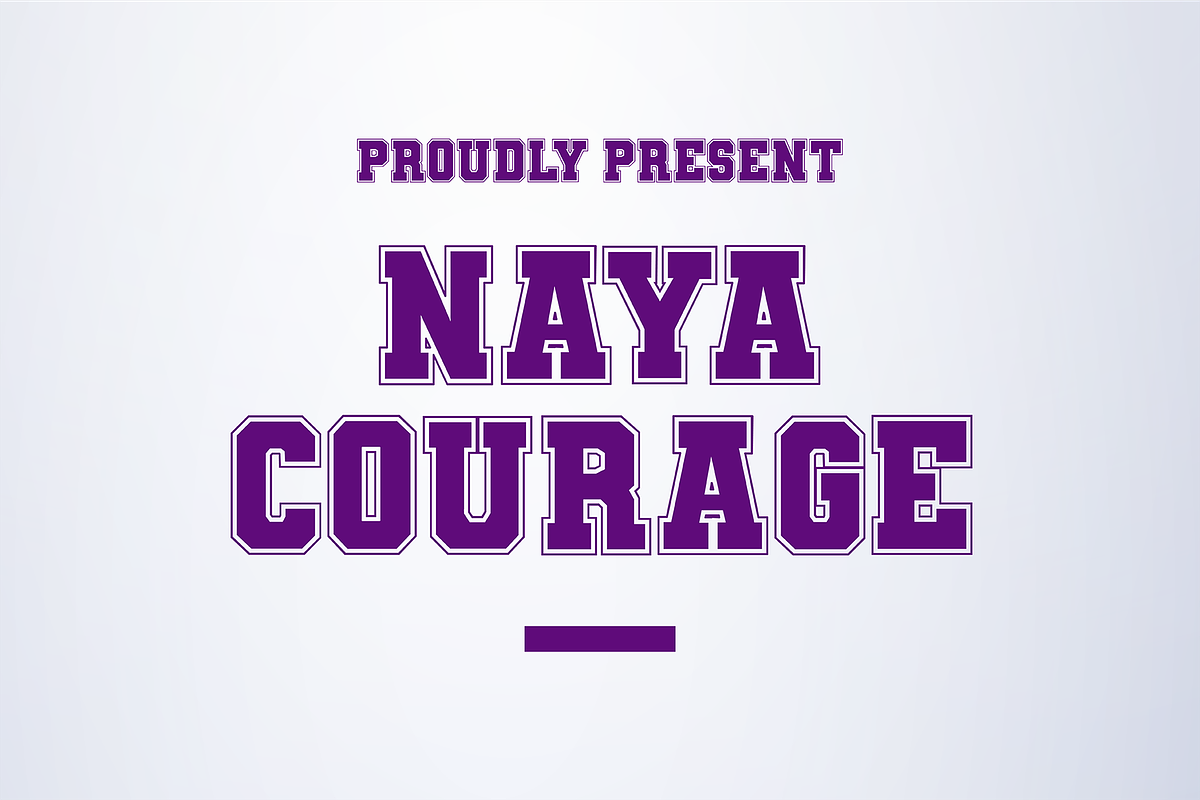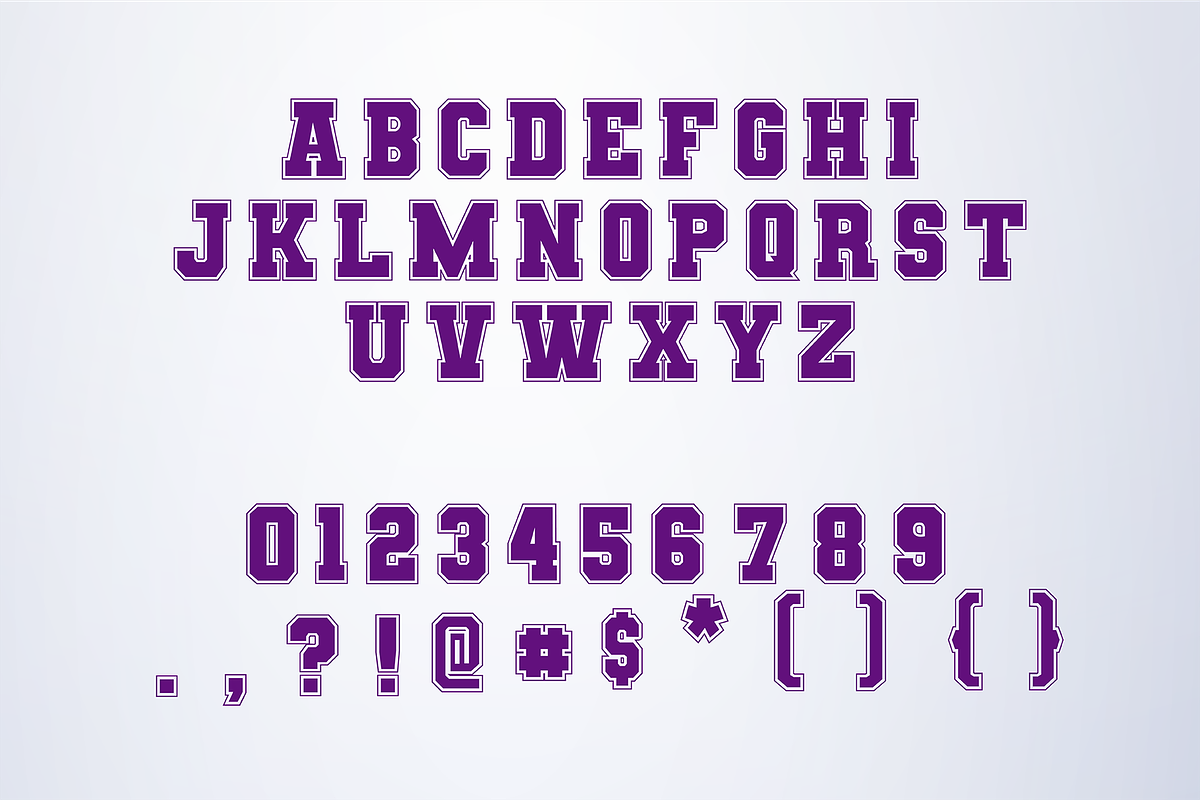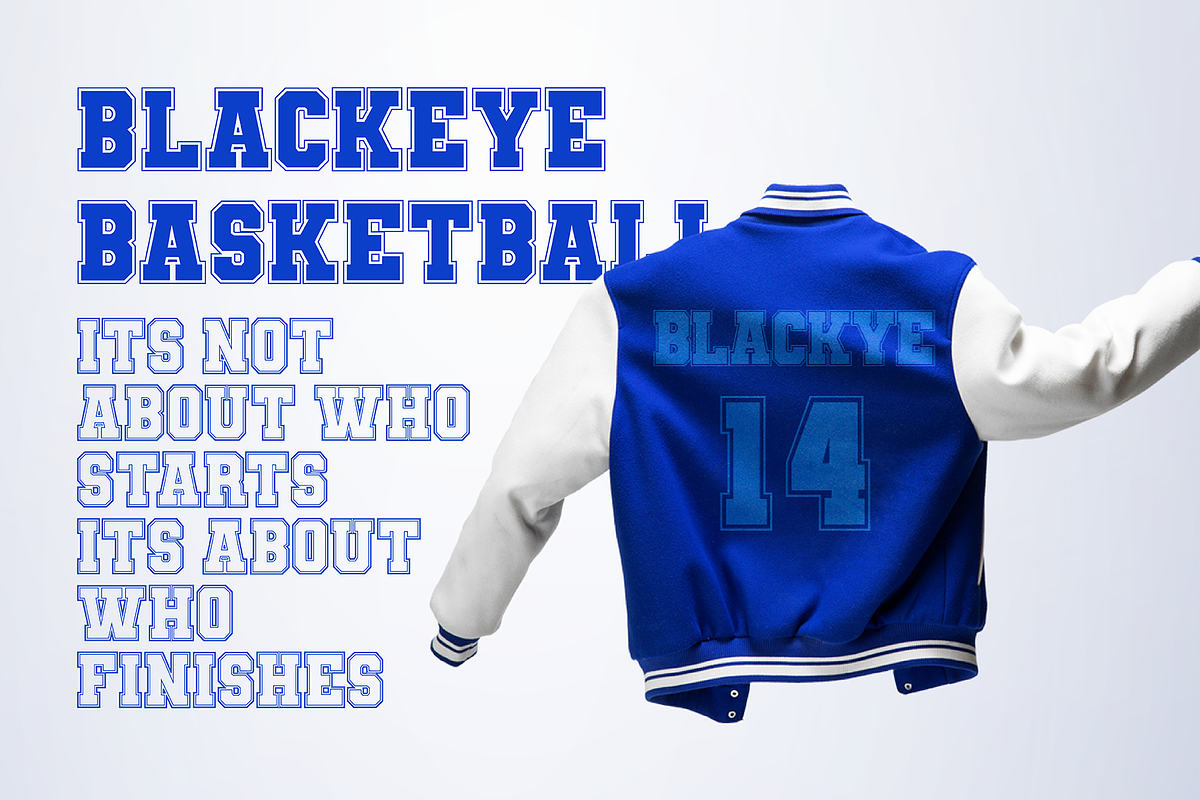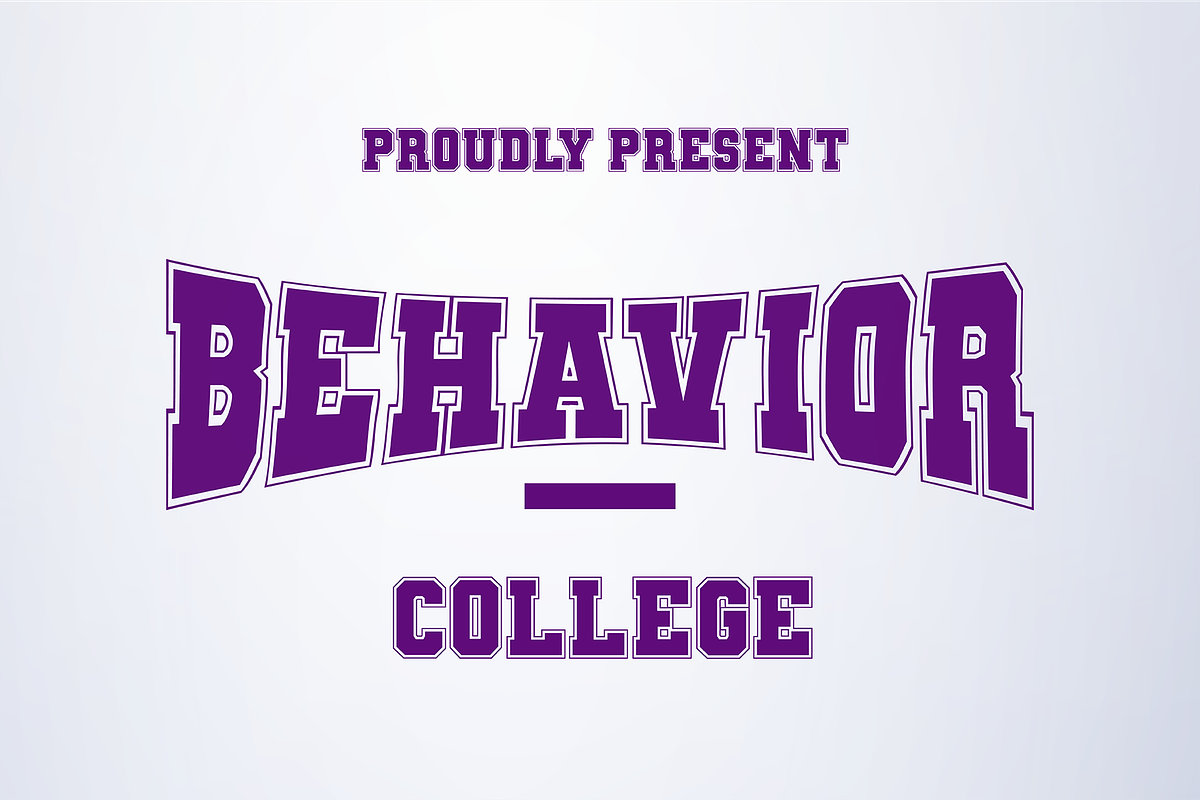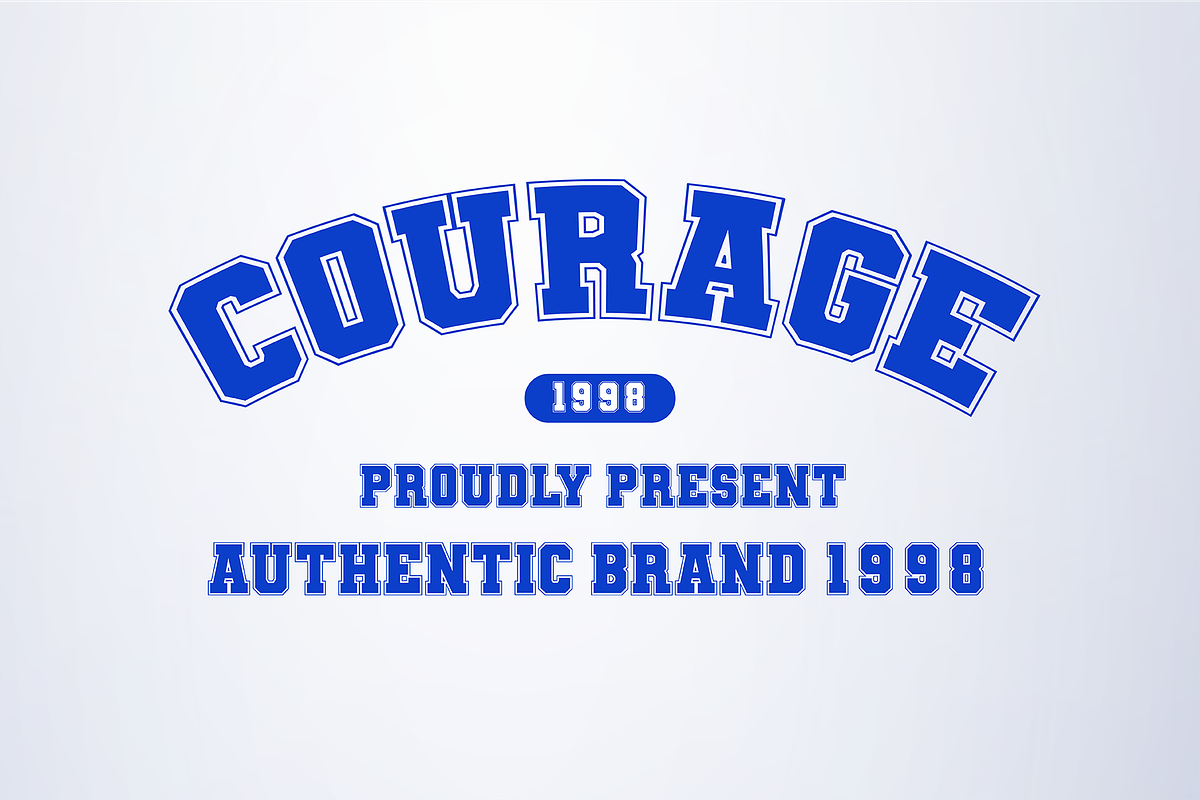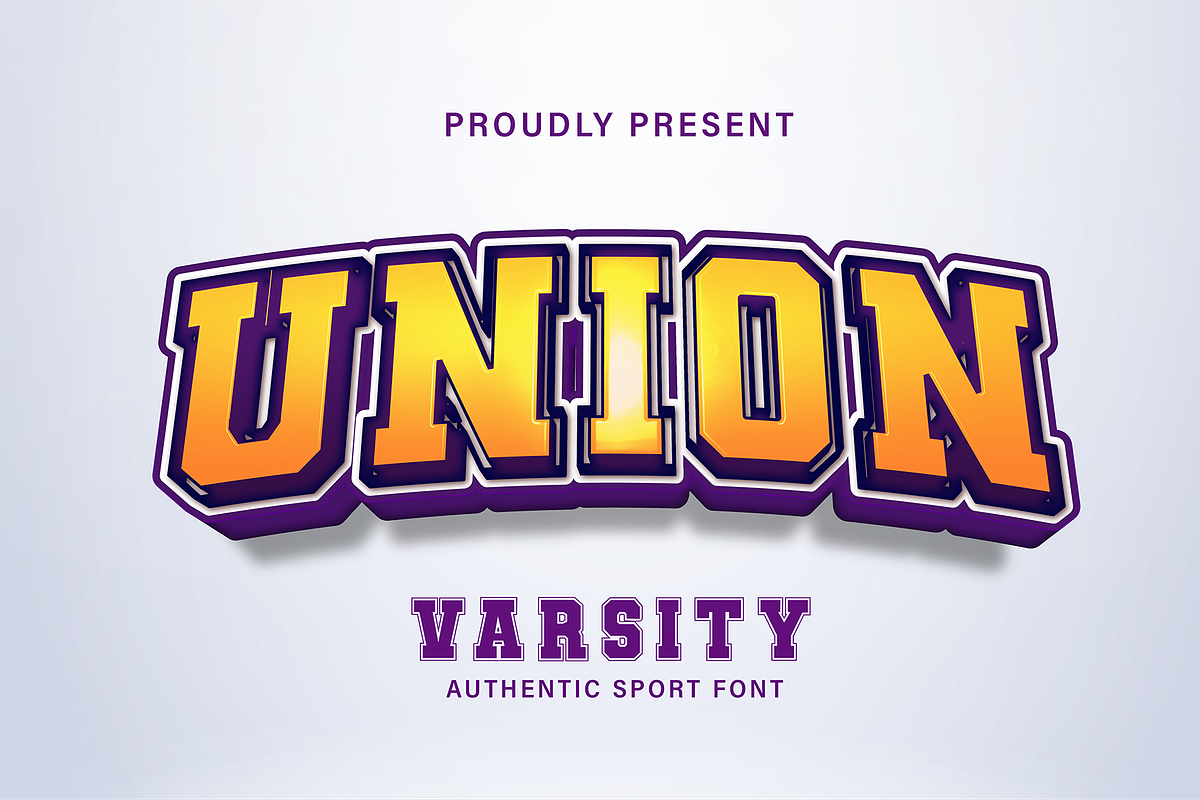
Union Varsity
Classic varsity style to your projects with Union Varsity! Perfect for sports-themed design projects, this versatile font features sharp outline letters reminiscent of traditional college fonts.